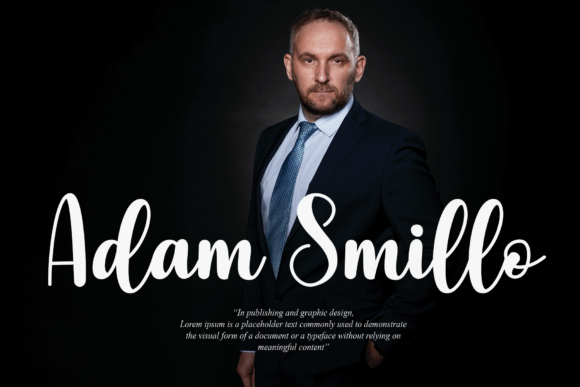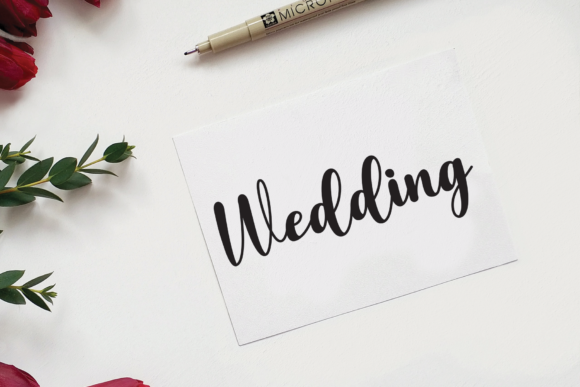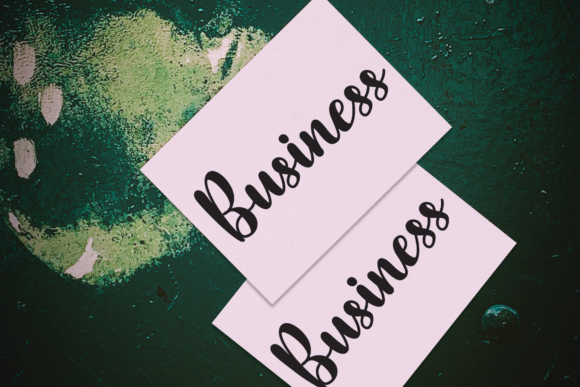
About Billiard Font
Billiard is a versatile and charming handwritten font that brings a casual and friendly feel to your design projects. Its uniqueness and adaptability make it a great choice for a variety of applications.
For wedding invitations, Billiard can add a touch of personalization and creativity to your special day. Its casual and relaxed style can complement a range of wedding themes, from rustic and bohemian to modern and minimalistic. Whether you’re planning an intimate backyard wedding or a chic city celebration, Billiard’s handwritten charm can set the tone for a memorable event.
Business cards designed with Billiard can help you create a distinct and approachable brand identity. Its friendly and adaptable nature can make your business cards stand out and leave a positive impression on clients and colleagues. Whether you’re a freelancer, entrepreneur, or part of a larger company, Billiard’s casual elegance can make your brand more relatable and engaging.
Greeting cards and social media posts crafted with Billiard can capture the essence of authenticity and heartfelt communication. Its handwritten look adds a personal touch to your messages, making them resonate with friends, family, and followers. Whether you’re sending birthday wishes, expressing gratitude, or sharing updates, Billiard’s casual style can enhance the emotional impact of your content.
Billiard’s adaptability extends to wall art and home decor projects, allowing you to infuse your living space with a relaxed and welcoming atmosphere. Its versatile design can complement various interior styles, from cozy and traditional to eclectic and artistic. Whether you’re creating wall prints, decorative signs, or personalized home accents, Billiard’s casual charm can add a touch of character and warmth to any room.
In summary, Billiard’s casual, unique, and adaptable handwritten style makes it a versatile font choice for a range of design projects. From wedding invitations and business materials to social media graphics and home decor, Billiard’s approachable and personal appeal resonates with diverse audiences and contexts, enhancing the overall aesthetic and impact of your creations.